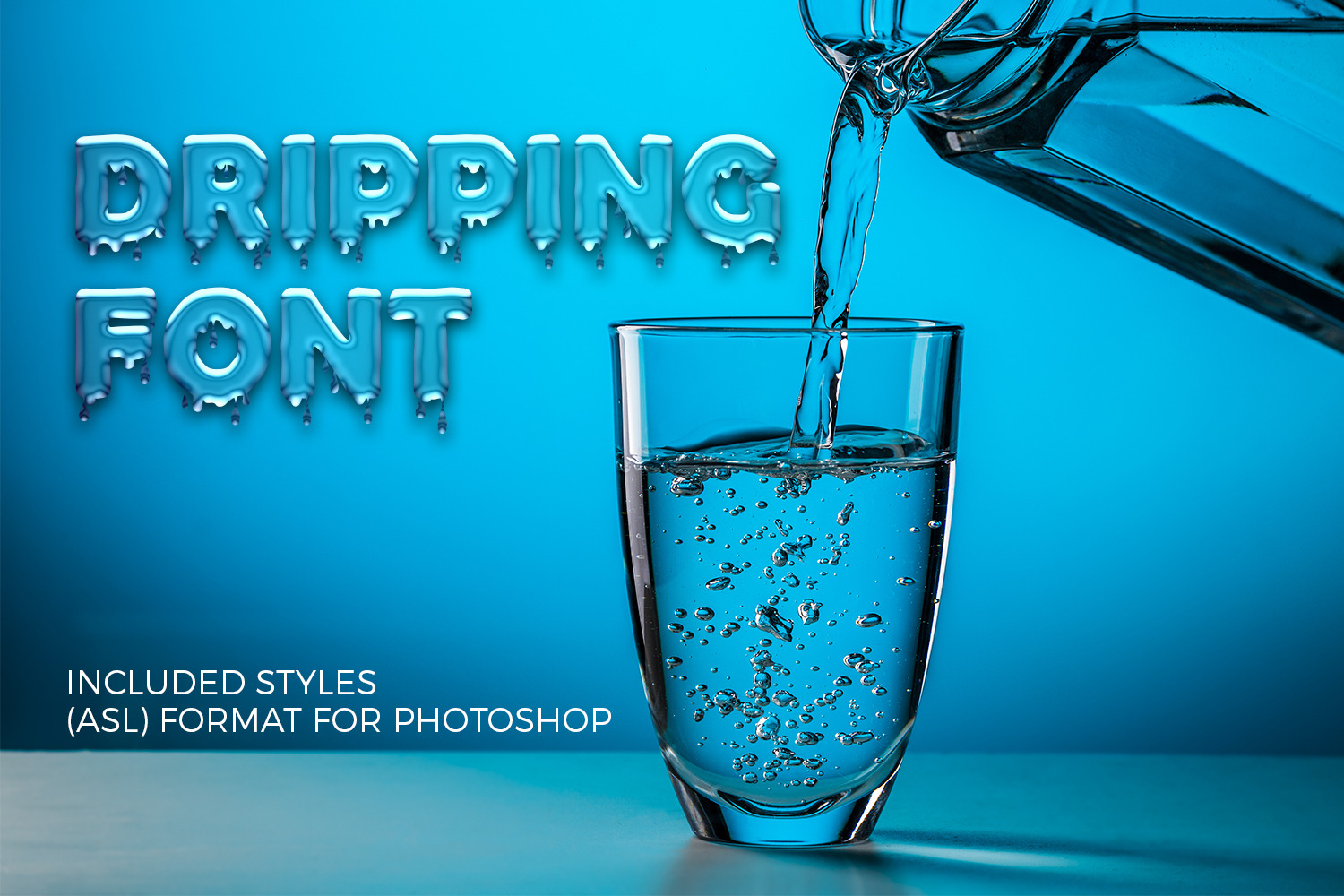
Dripping Font
Dripping is a bold and incredibly unique display font. It can easily be matched to a large set of projects, so add it to your creative ideas and notice how it makes them stand out!